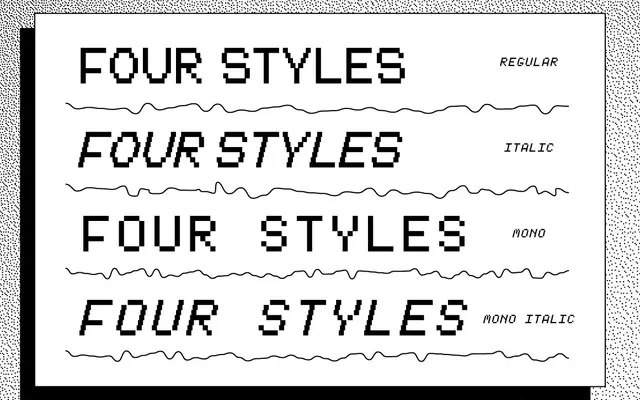
Tickerbit
A pixel-based typeface in four styles covering proportional and monospaced cuts, each with a matching italic.
Built on a pixel grid, Tickerbit comes in four styles: regular, italic, mono and mono italic. The proportional and monospaced variants share the same pixel aesthetic but allow different typesetting contexts, from running text to code or tabular display. Glyph coverage spans Basic Latin, Latin-1 Supplement and Latin Extended, along with punctuation, currency symbols and mathematical operators.
Tickerbit is a pixel-based typeface with a monospaced variant, placing it squarely in the mono category with a pixel/bitmap subcategory reflecting its grid-constrained construction.